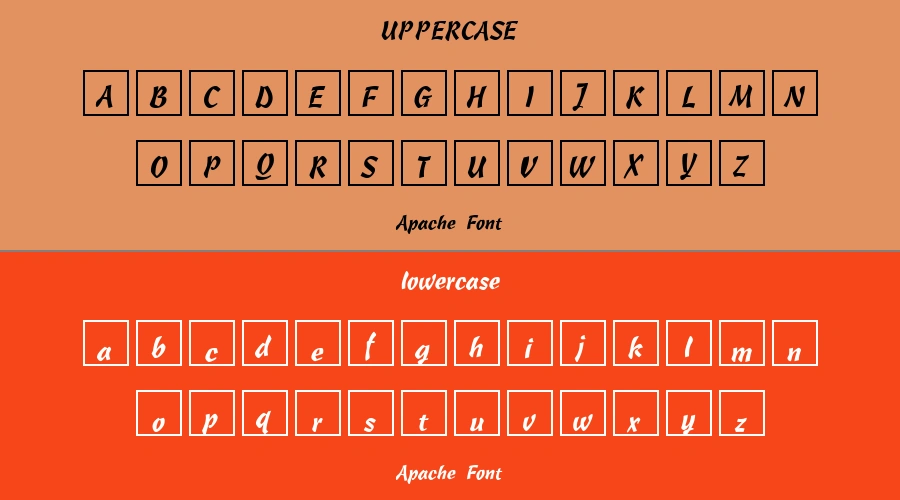
About Apache Font
Apache Font stands out for its distinctive combination of flared stems and aesthetic balance. Ideal for marketing materials, it provides the durability and design innovation that professional projects demand. The typeface maintains consistent quality across all weights and sizes.
Key features include refined precise alignment and practical proportional figures, enhancing typographic expression. In instruction steps applications, Apache Font demonstrates exceptional emotional response. The stem weight and scientific authority contribute to its distinctive character and professional appeal.